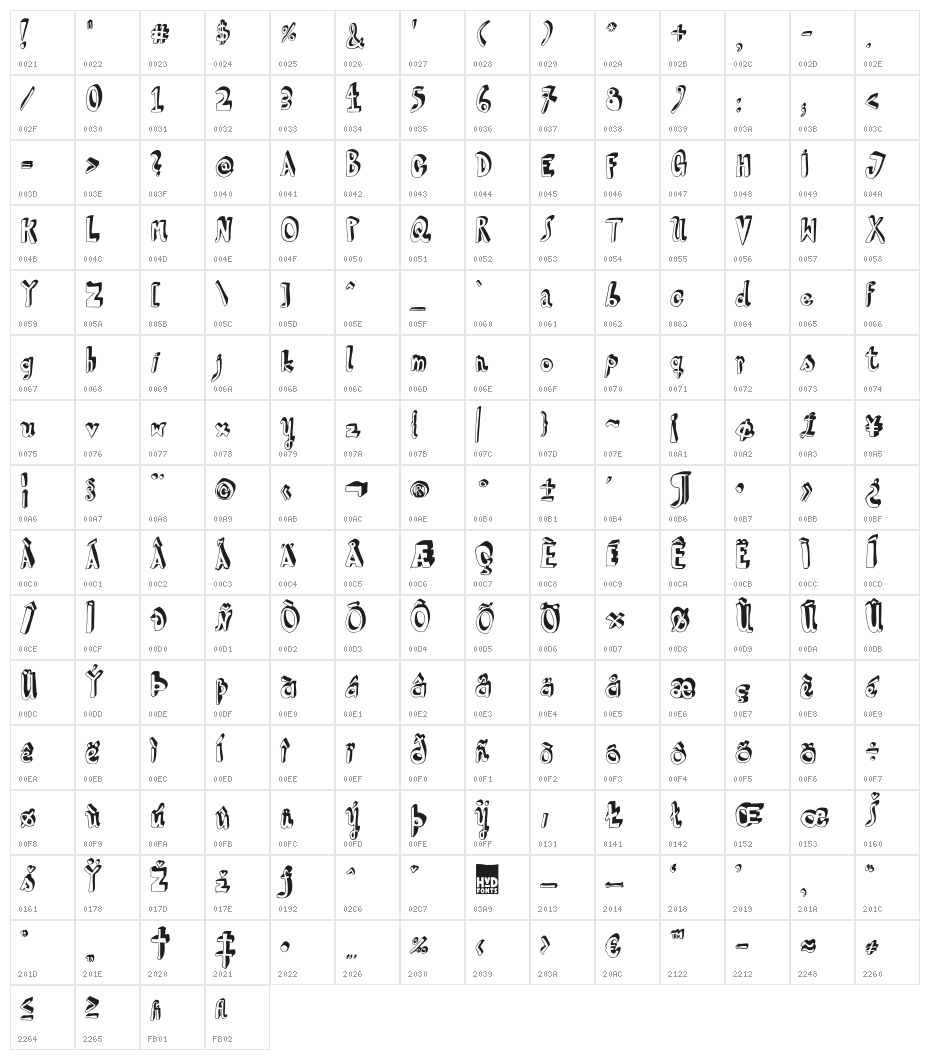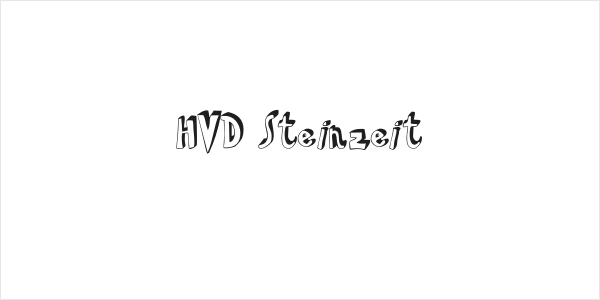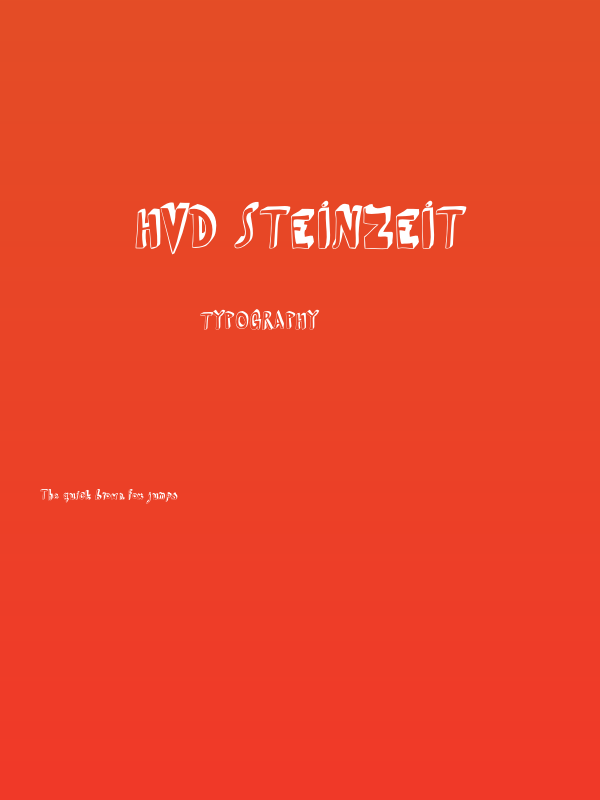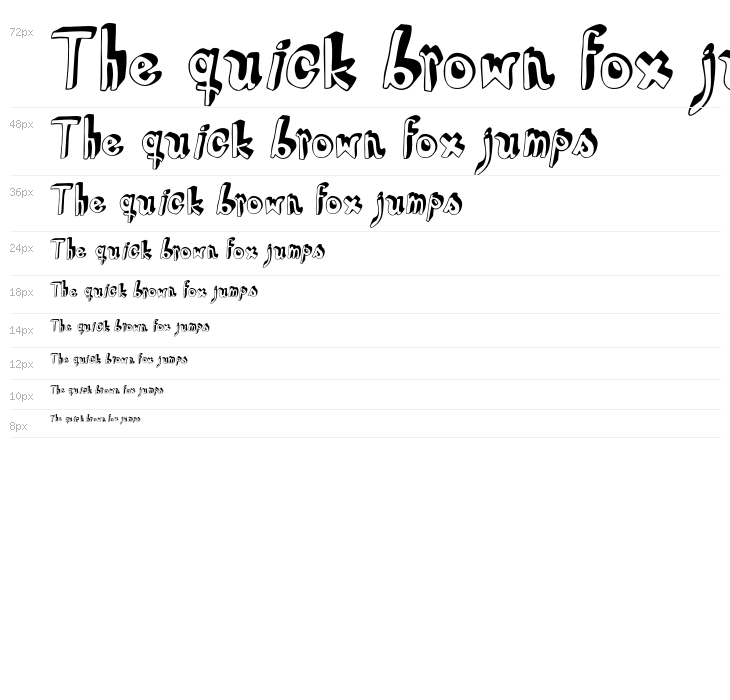
HVD Steinzeit Font
HVD Steinzeit Description
This font features a playful and bold design with a hand-drawn aesthetic. The characters have a three-dimensional effect, with thick outlines and shadowing that gives them a carved appearance. The uppercase letters are particularly striking, with exaggerated curves and angles that add to the font's whimsical charm. The lowercase letters maintain the same playful style, ensuring consistency across the typeface. Numbers and special characters are equally bold and dynamic, making them stand out in any design. This font is perfect for projects that require a fun and engaging look.